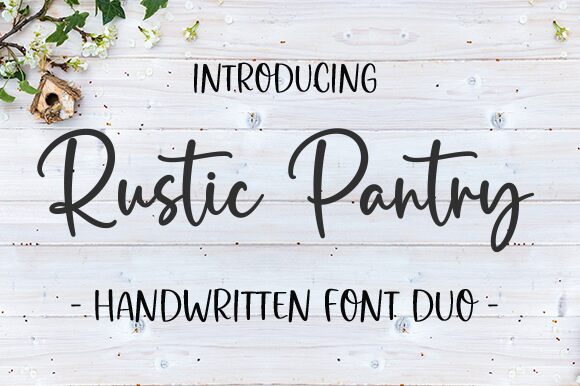
Rustic Pantry
Rustic Pantry effortlessly marries elegance with a touch of the artisanal, making it a treasure trove for designers looking to infuse their projects with a sense of authenticity and personality. Crafted by Graphix Line Studio, this semi-light, handwritten font exudes charm through its delicate and flowing characters. Each glyph in Rustic Pantry is thoughtfully designed to ensure your creative work stands out with its well-balanced and natural look.
This font's versatility shines across various design landscapes—from branding endeavors to personal invitations or heartfelt greetings. Thanks to being PUA encoded, every designer can tap into Rustic Pantry's full potential without hassle, unlocking all of its unique glyphs and swashes effortlessly. Whether you're aiming for rustic sophistication or whimsical flair, Rustic Pantry is poised to elevate your project with its distinctive handcrafted style.